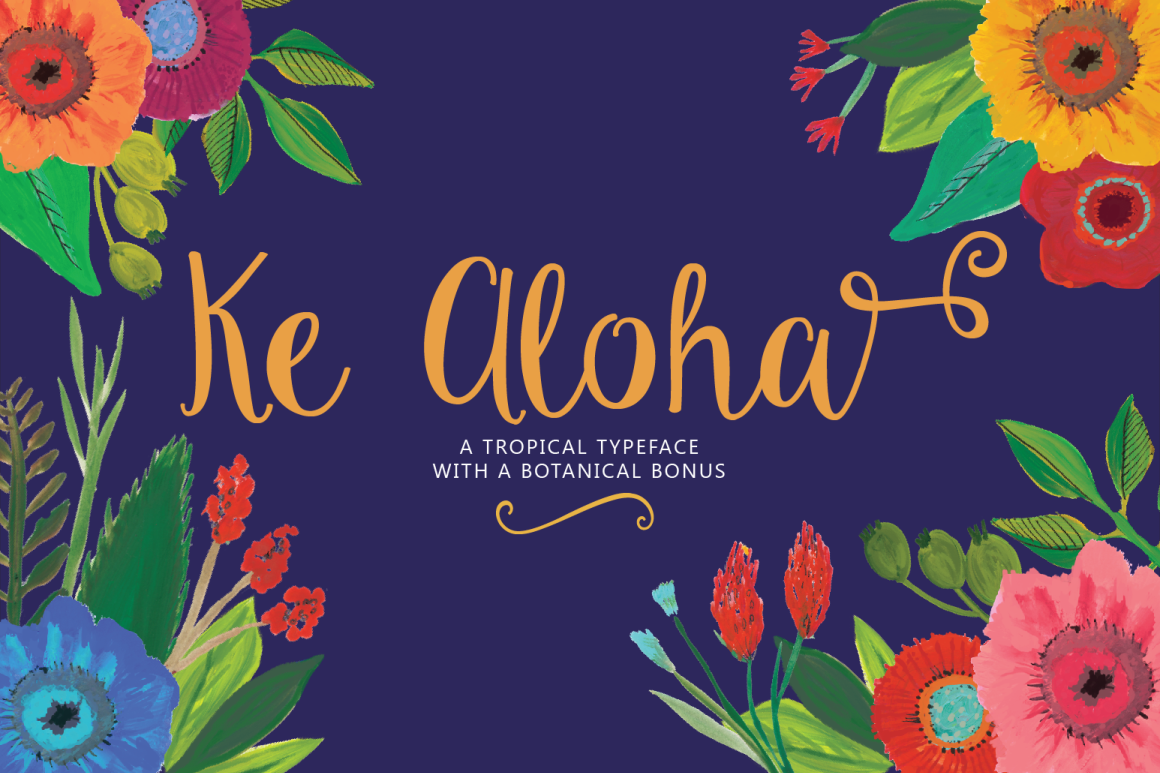
Ke Aloha Script + Tropical Bonus
Ke Aloha
Ke Aloha Ornaments
Ke Aloha (meaning the Beloved in Hawaiian) is a warm, casual hand-lettered script
NEW FREEBIE TROPICAL FLOWER BONUS
An entire ornament file of tropical leaves and flowers has now been added.Ke Aloha Ornaments are a symbol / dingbat style font file.
More than 50 completely different hand drawn floral elements right at your finger tips - in fact - right on your keyboard! Every single floral element is completely re-sizable and editable.
No need for any special design software, as a font these graphics are suitable for even the most basic computer programs. Automatically transparent backgrounds, change the color of fill and stroke, add shadows and dimension, stack and layer leaves and flowers til your hearts content.